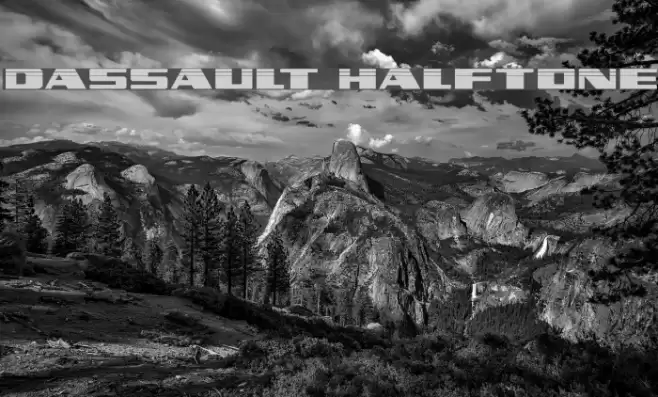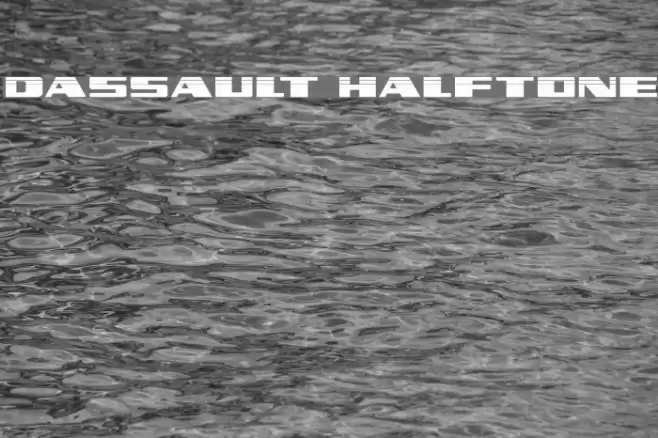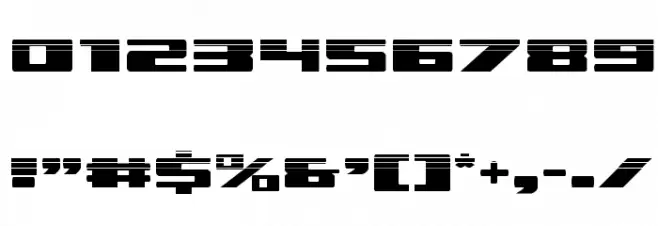
Dassault Halftone Font
Dassault Halftone Description
This font features a bold, geometric design with a futuristic and industrial feel. The characters are constructed with sharp angles and clean lines, giving it a strong and assertive appearance. The uppercase letters are particularly striking, with a blocky and robust structure that commands attention. The lowercase letters maintain the same boldness, ensuring consistency across the typeface. Numbers and special characters are designed with the same geometric precision, making them easily legible and visually cohesive with the rest of the font. This font's unique style is ideal for projects that require a modern and impactful look.
A bold, geometric font with a futuristic and industrial style from Uncategorized fonts.
- Proposed Projects: Ideal for branding, posters, video game graphics, and sci-fi themed designs.